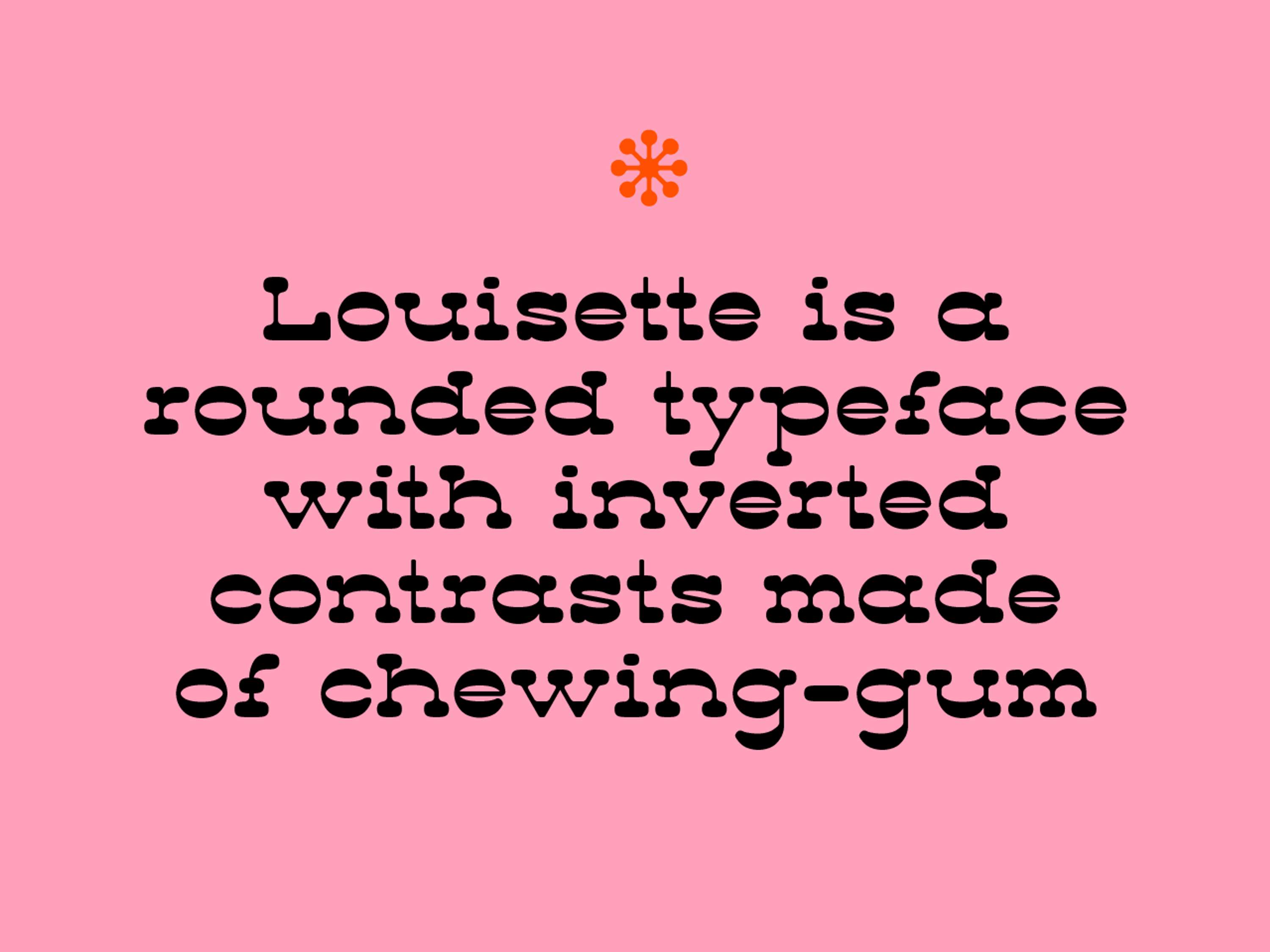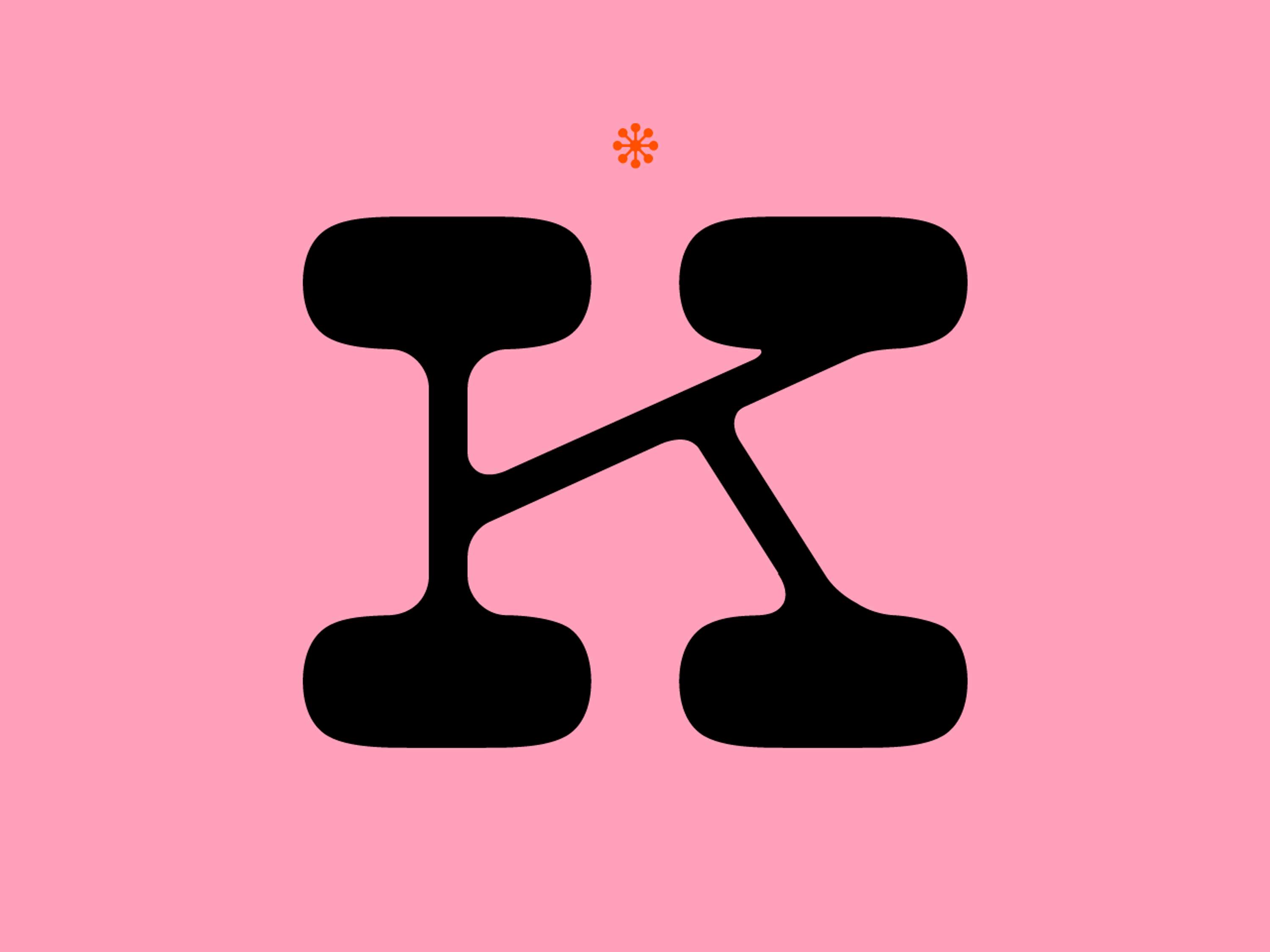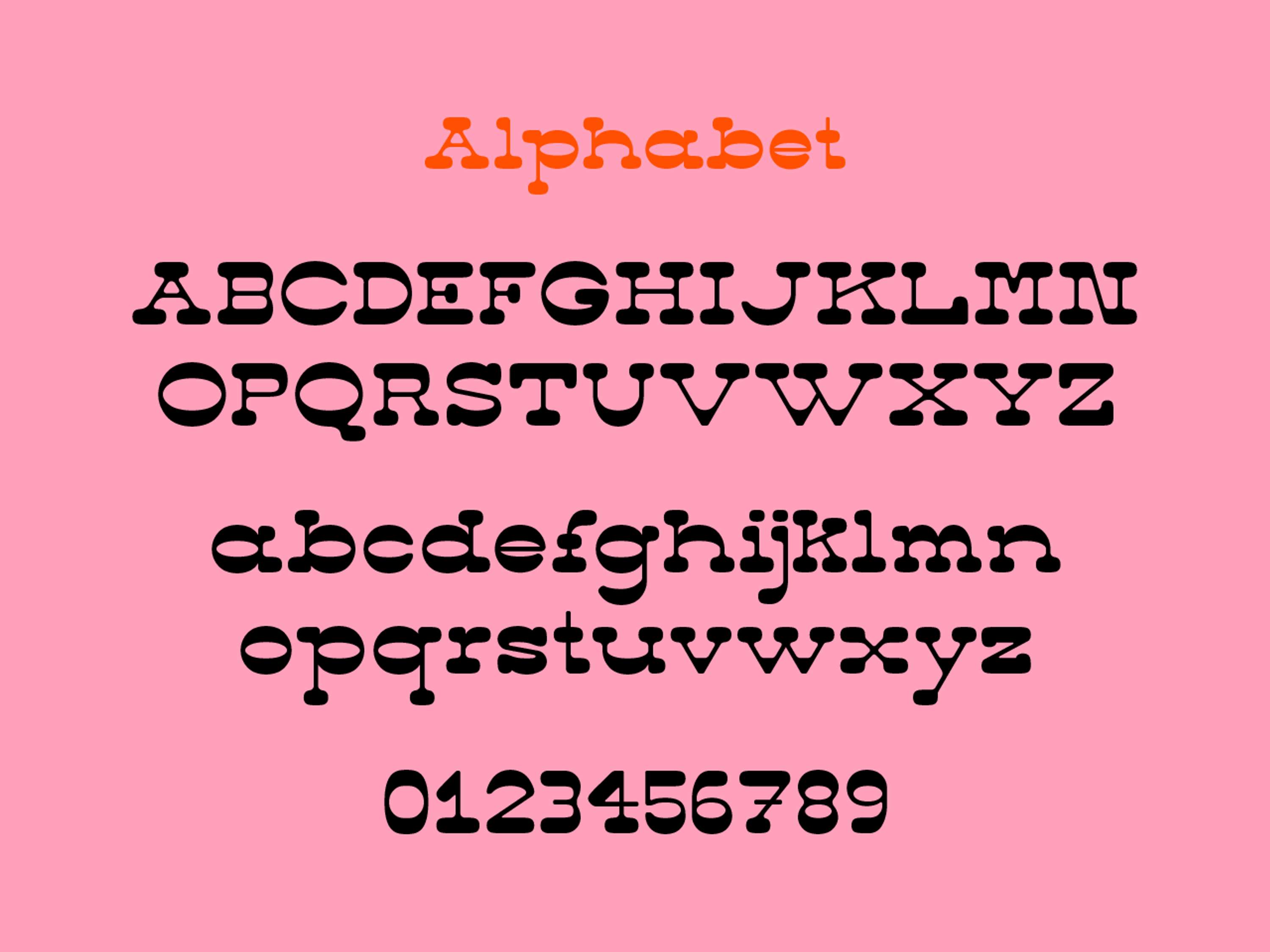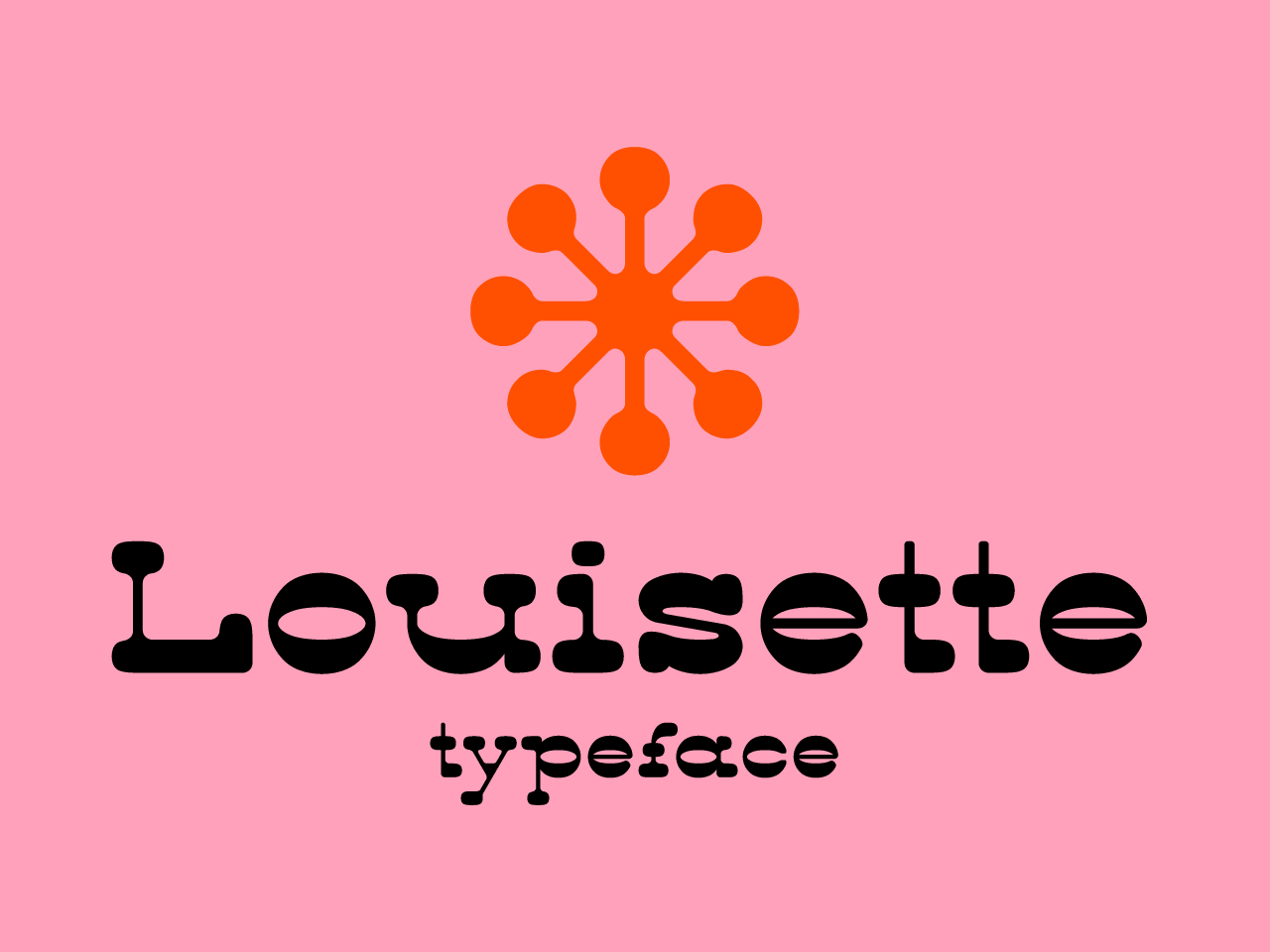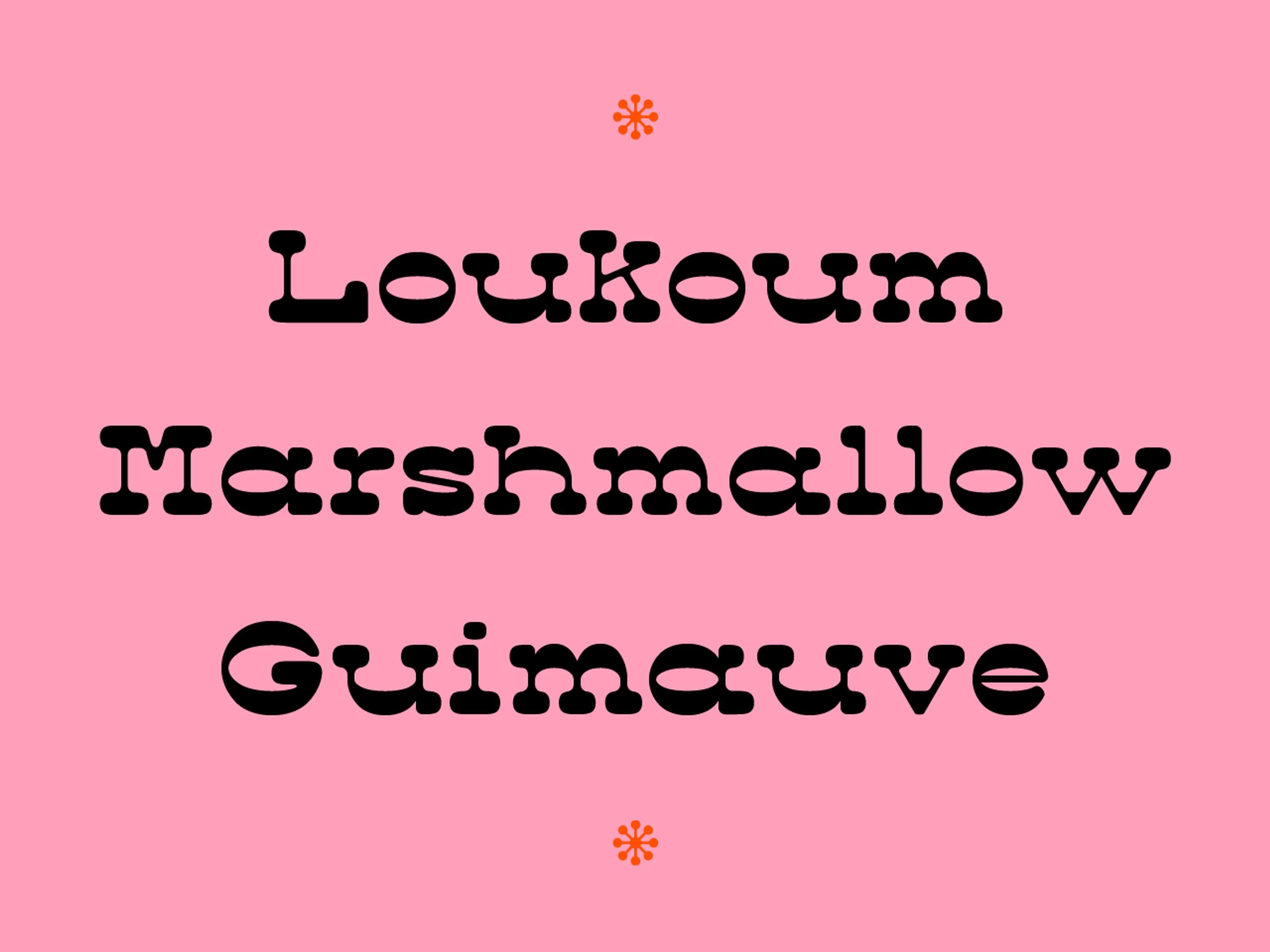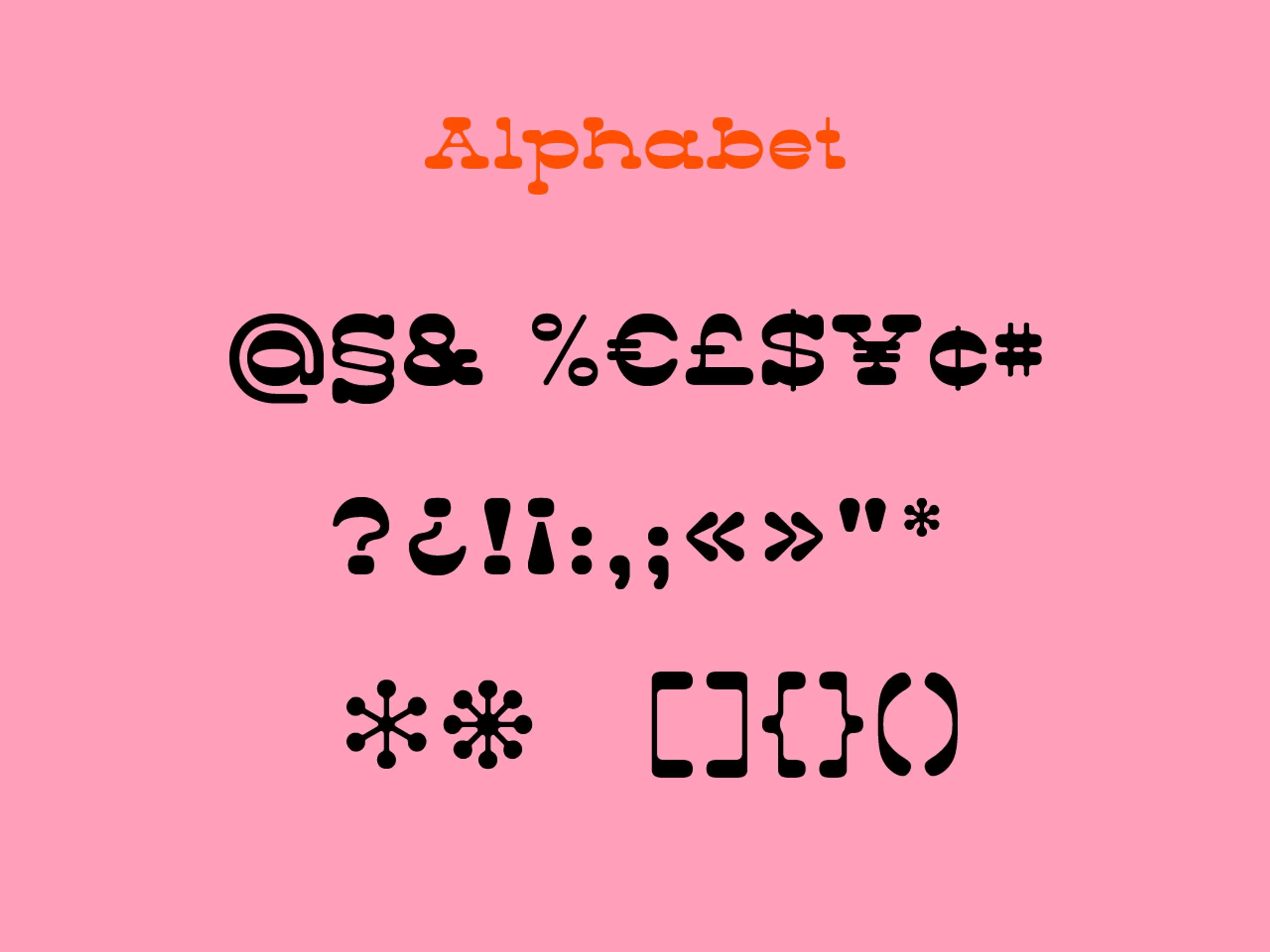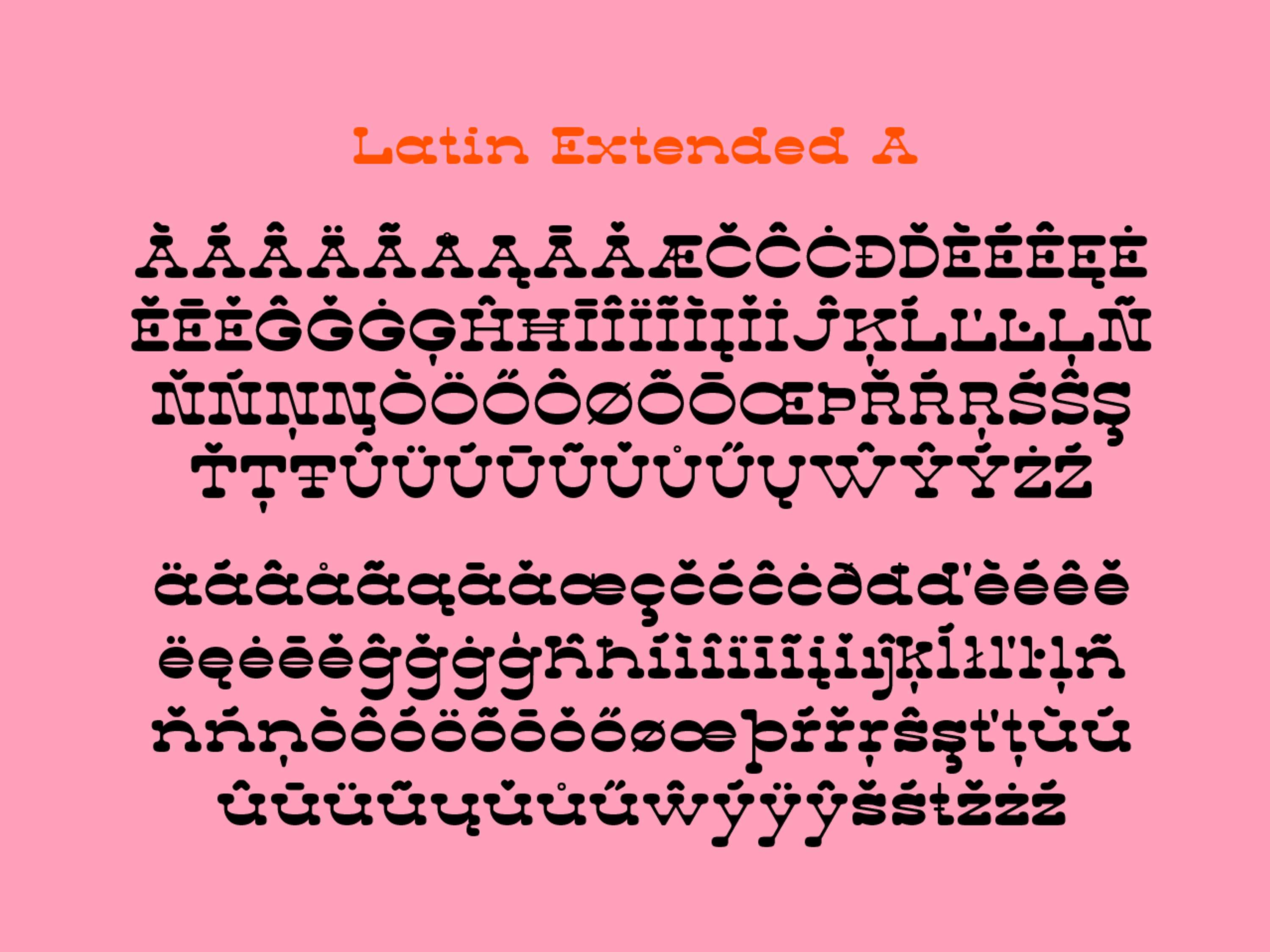
Louisette typeface
Louisette is a reversed contrast and rounded typeface made of chewing gum. Send me a mail if you are interested for trial versions. Licence for 1 workstation at 50€.
Louisette typeface by Arnaud Aubry